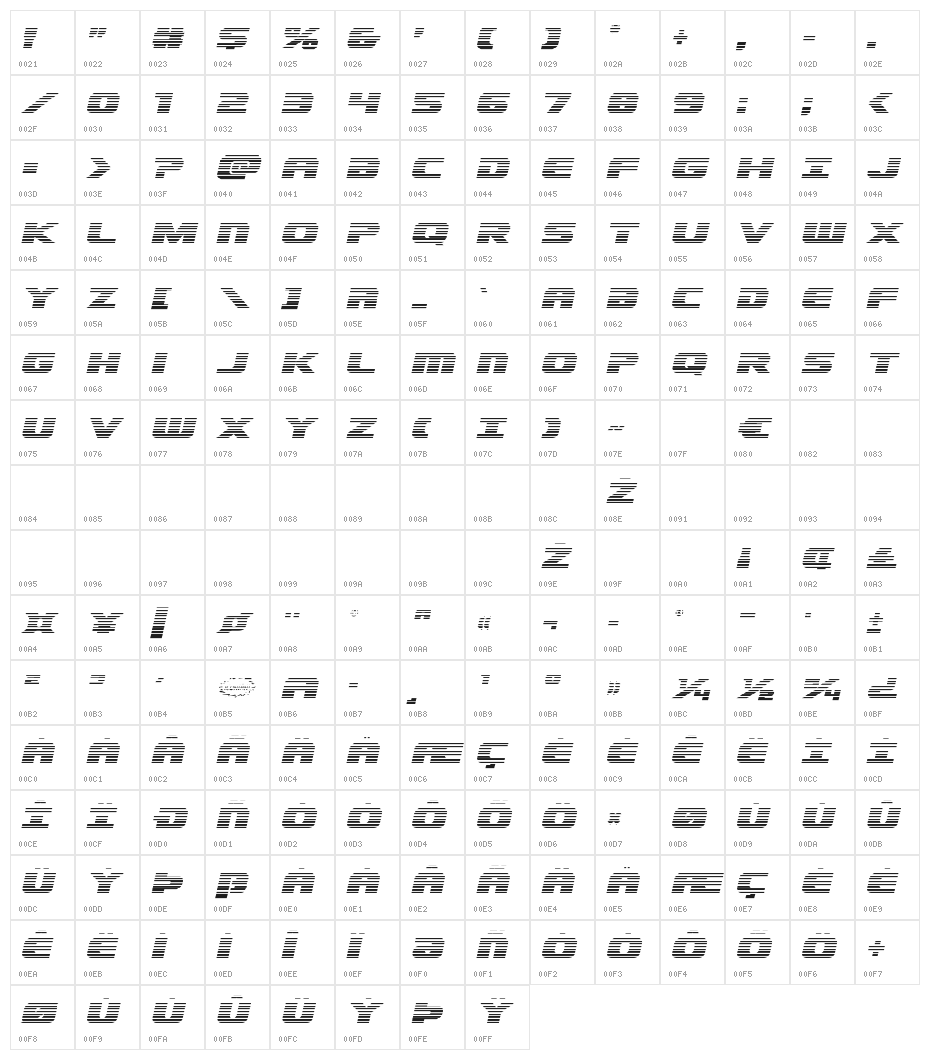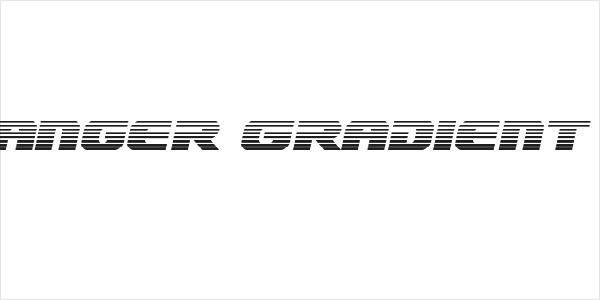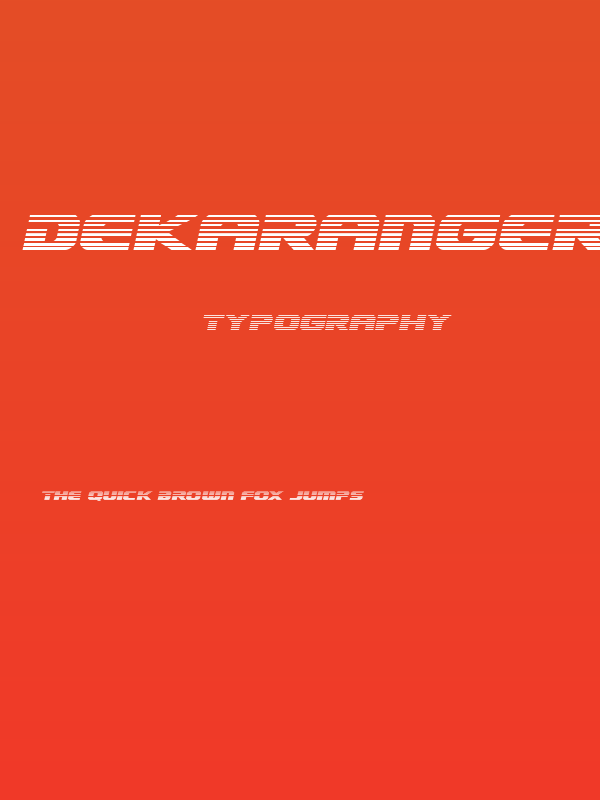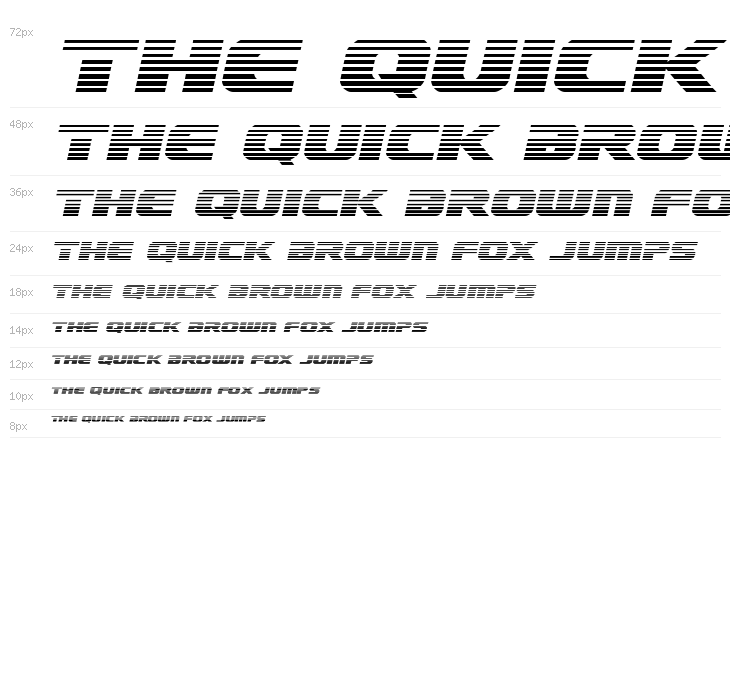
Dekaranger Gradient Italic Font
Dekaranger Gradient Italic Description
This font features a dynamic, futuristic style with a distinct italic slant, giving it a sense of motion and speed. The characters are composed of horizontal lines that create a gradient effect, enhancing the modern and technological feel. The uppercase and lowercase letters maintain a consistent design, with sharp angles and clean lines. Numbers and special characters follow the same aesthetic, ensuring uniformity across all glyphs. The overall appearance is bold and eye-catching, making it suitable for projects that require a strong visual impact.
| Proposed Projects | Ideal for sci-fi themed posters, video game graphics, technology branding, and sports team logos. |